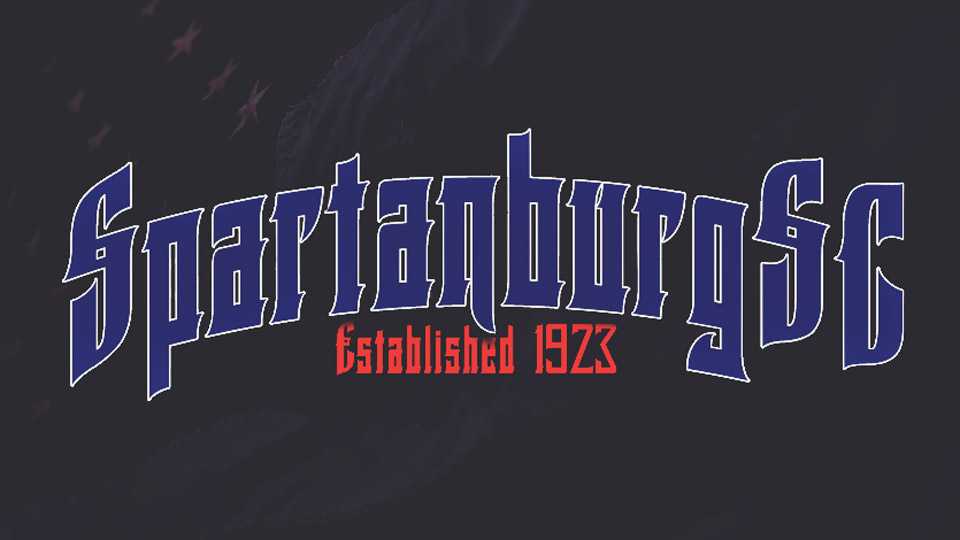
Download SpartanburgSC font, a fancy retro typeface inspired by the 1923 Sanborn Insurance Map cover for Spartanburg, South Carolina. SpartanburgSC font is suitable logos, headlines, vintage prints t-shirts and apparel and more.
Designer: Pilaster Davy